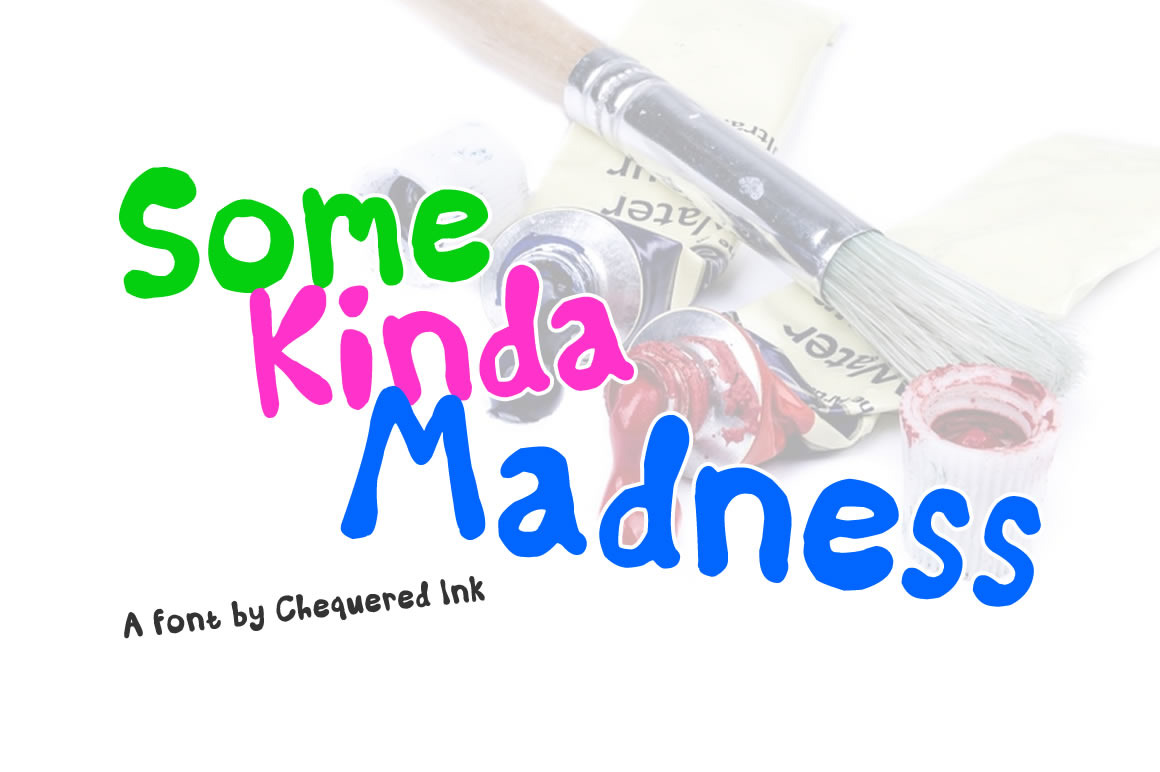
Some Kinda Madness Font
Some Kinda Madness is a font designed to look like broad, messy brush strokes with thick ink. It features the full basic Latin and Latin-1 supplement Unicode character sets, which includes commonly used European characters.